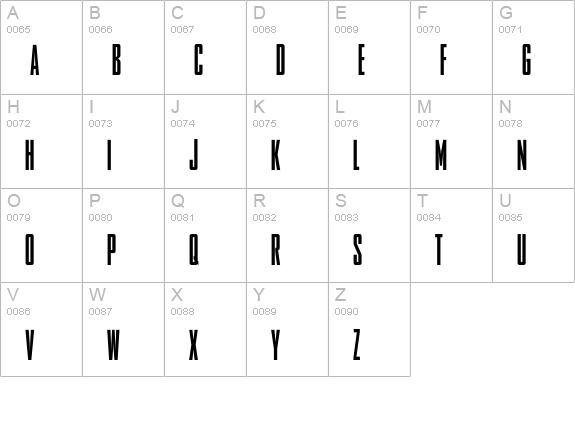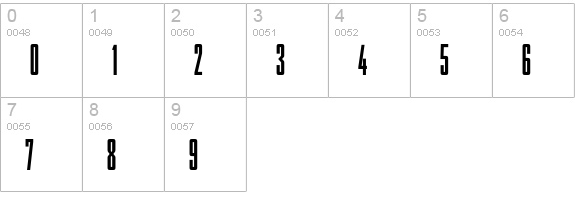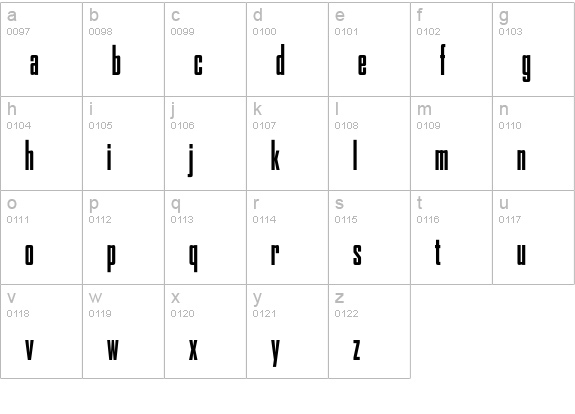
AgencyFB-BoldCompressed Font Details
AgencyFB-BoldCompressed is a modern and sleek typeface that exudes confidence and sophistication. Its bold and compressed design makes it perfect for creating impactful headlines and eye-catching designs. This font is ideal for projects that require a strong and authoritative look, such as advertising campaigns, branding materials, and editorial design. The best part is that AgencyFB-BoldCompressed is available for free download at FontsMarket.com. Whether you are a graphic designer, marketer, or simply someone looking to add a touch of professionalism to your projects, this font is a fantastic choice. Don't miss out on the opportunity to enhance your designs with this striking and versatile typeface – download AgencyFB-BoldCompressed today for free at FontsMarket.com!